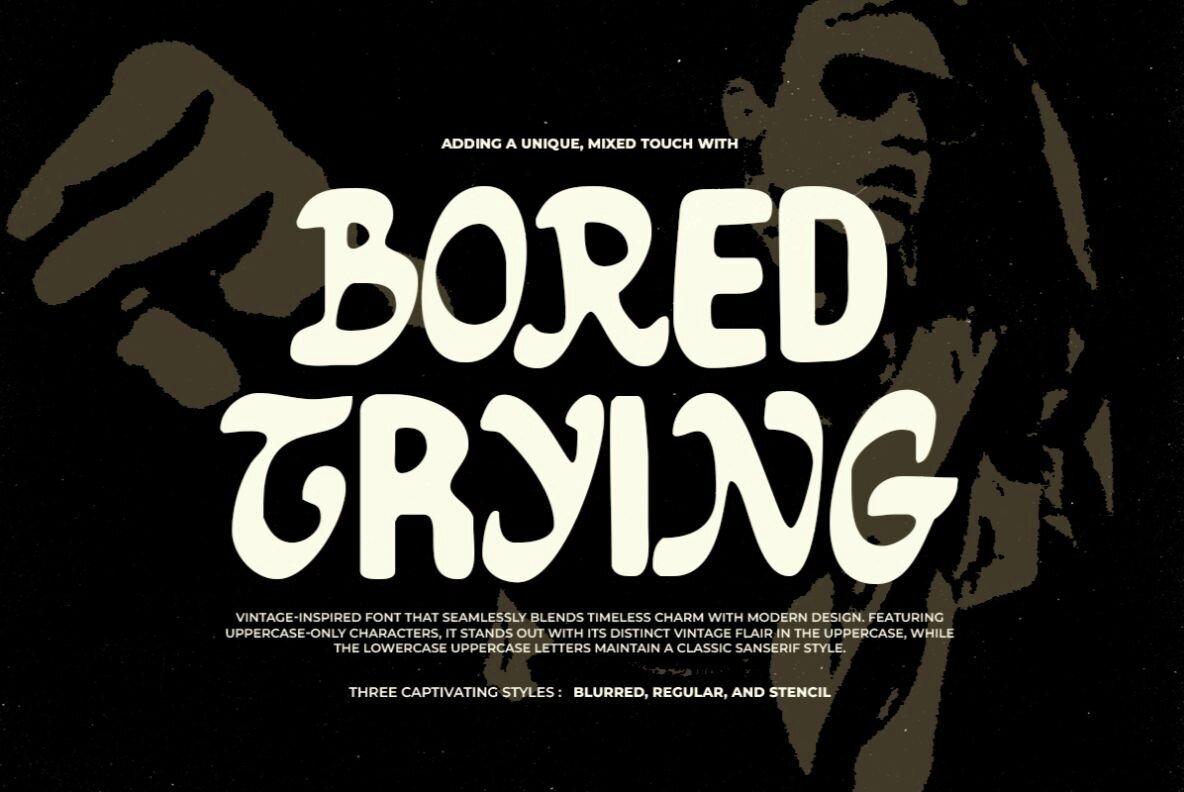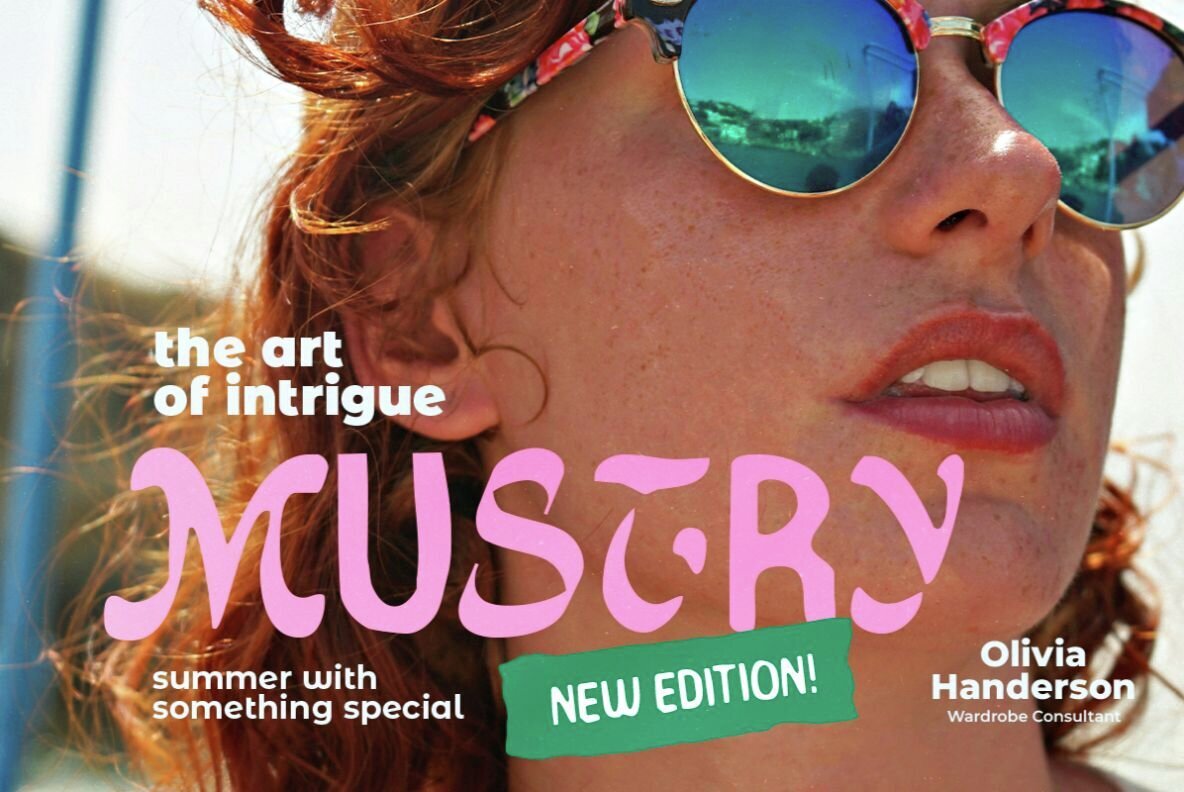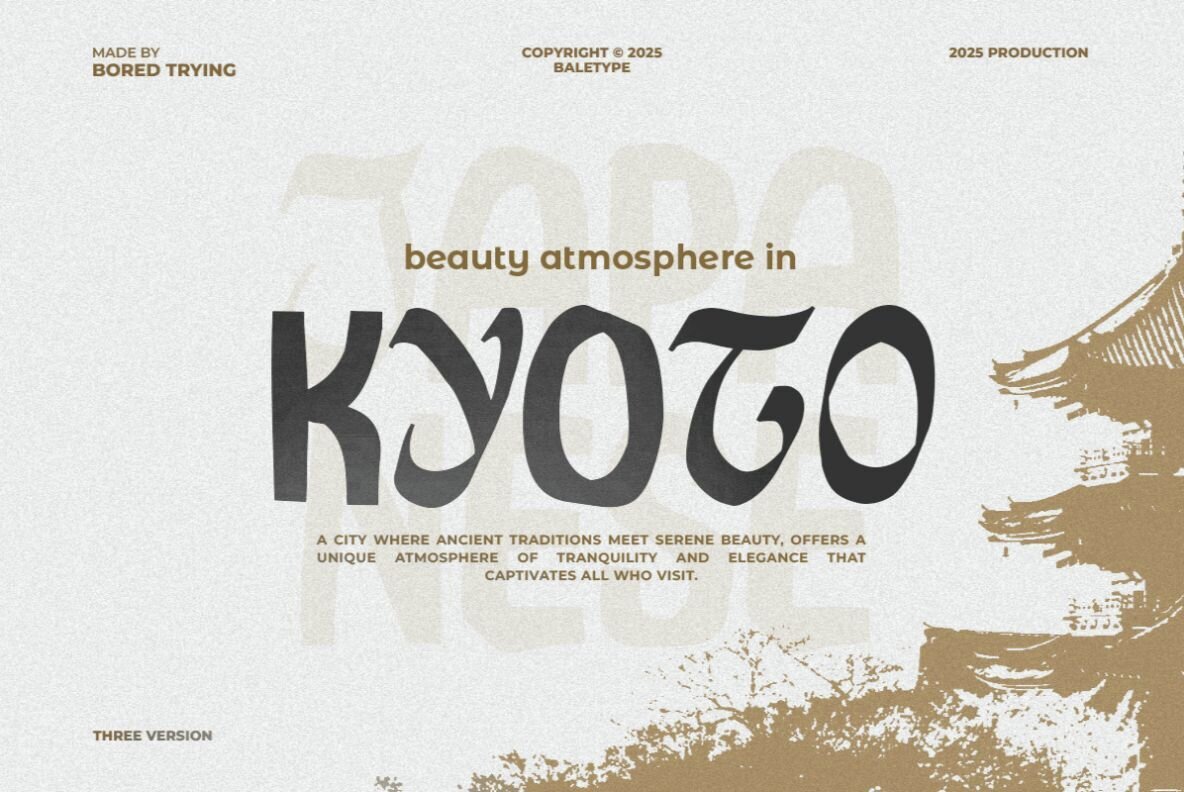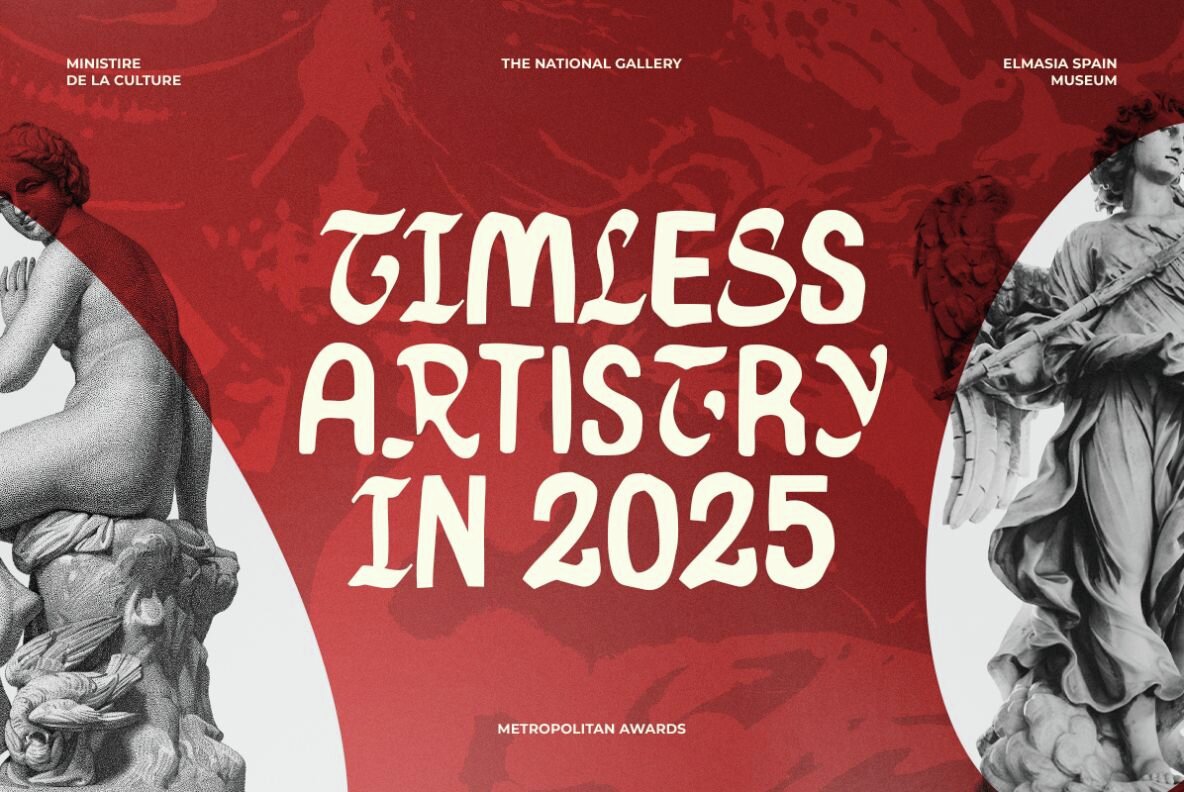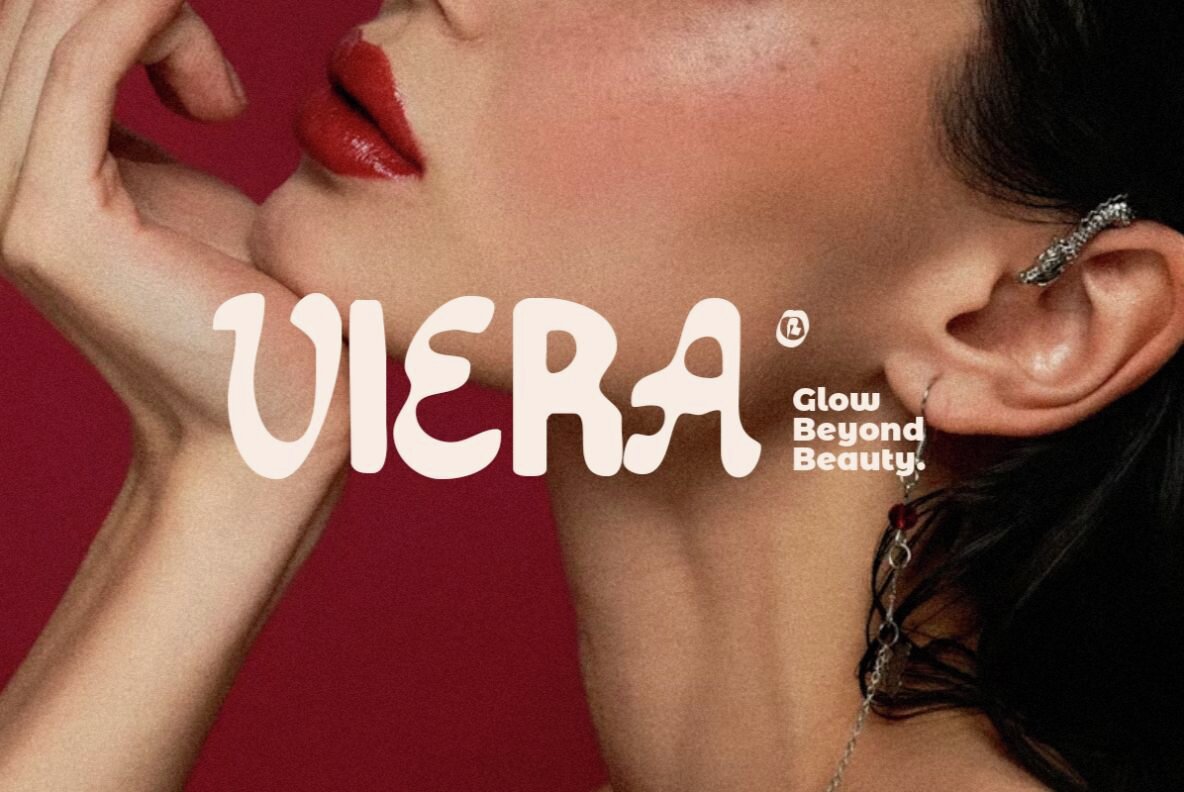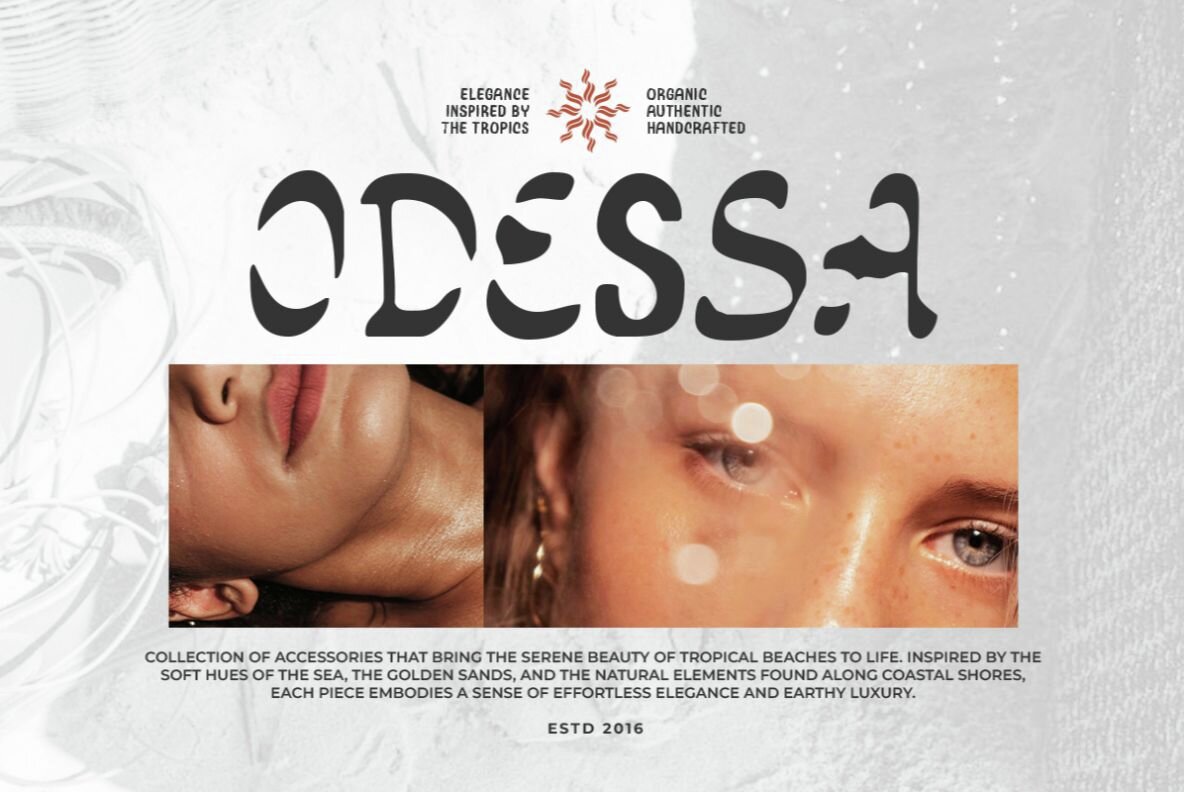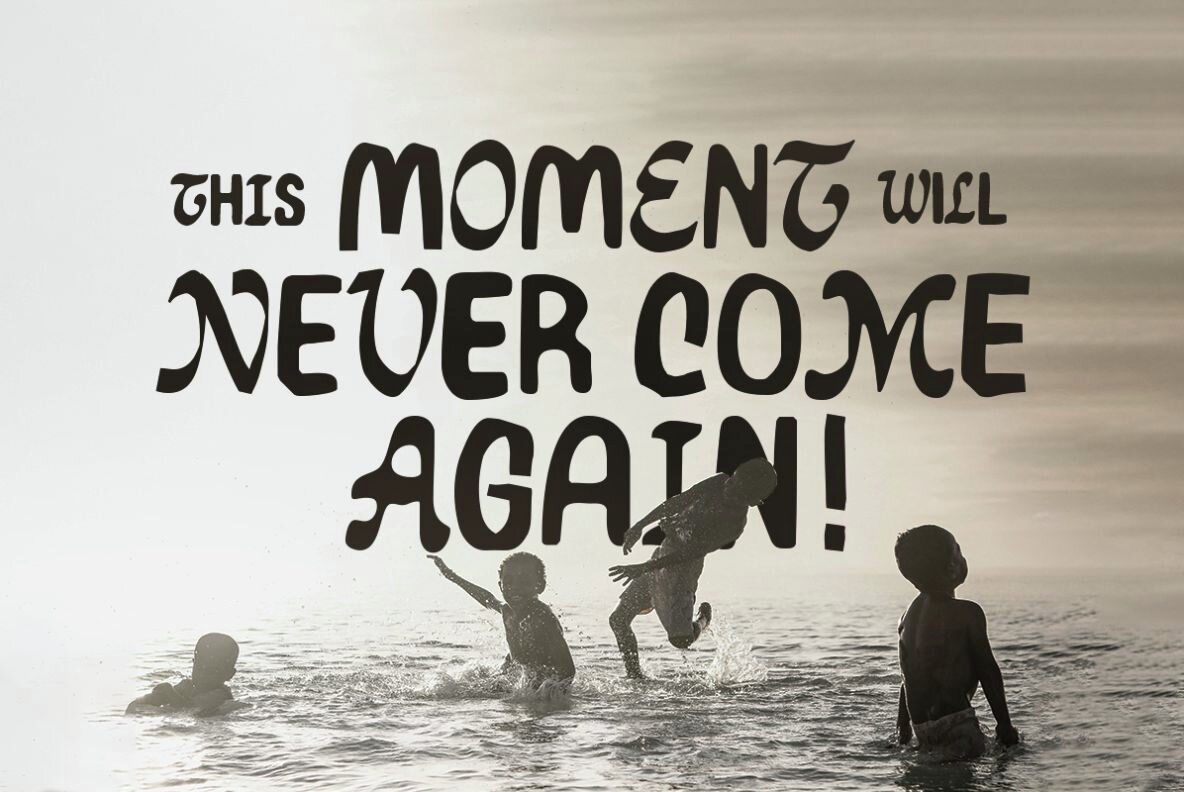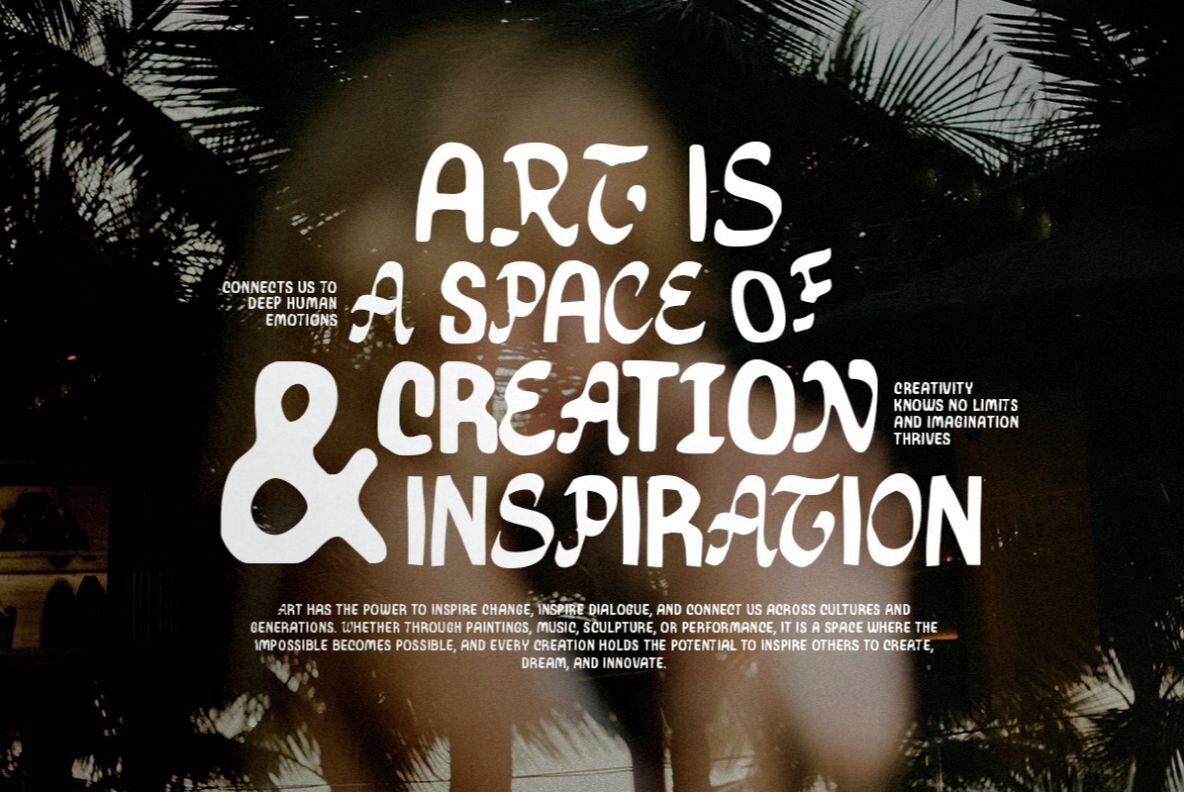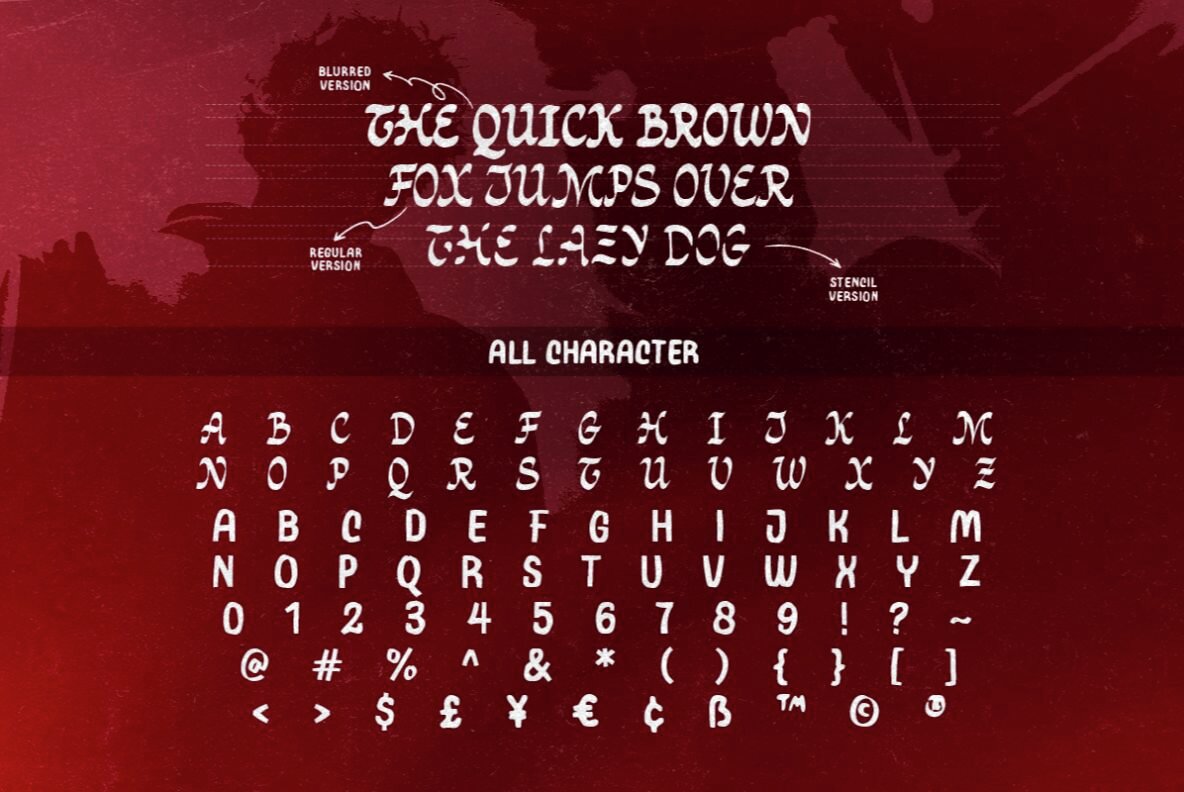
Bored Trying Font
Bored Trying Regular
Bored Trying Blurred
Bored Trying Stencil
Bored Trying stands out with its unconventional blend—blackletter-inspired uppercase paired with sans serif lowercase. The result is a font that immediately conveys individuality and character. Crafted with a rough, handmade appearance, this typeface brings an organic sensibility to any creative project. Its versatility makes it a compelling choice for branding, posters, and quotes, especially when a design needs a natural, tactile feel. Features: Bored Trying is suitable for designers seeking a font that makes a memorable impression, whether used for headlines, branding, or expressive typographic compositions.Bored Trying: Mixed Blackletter and Sans Serif with a Handmade Touch